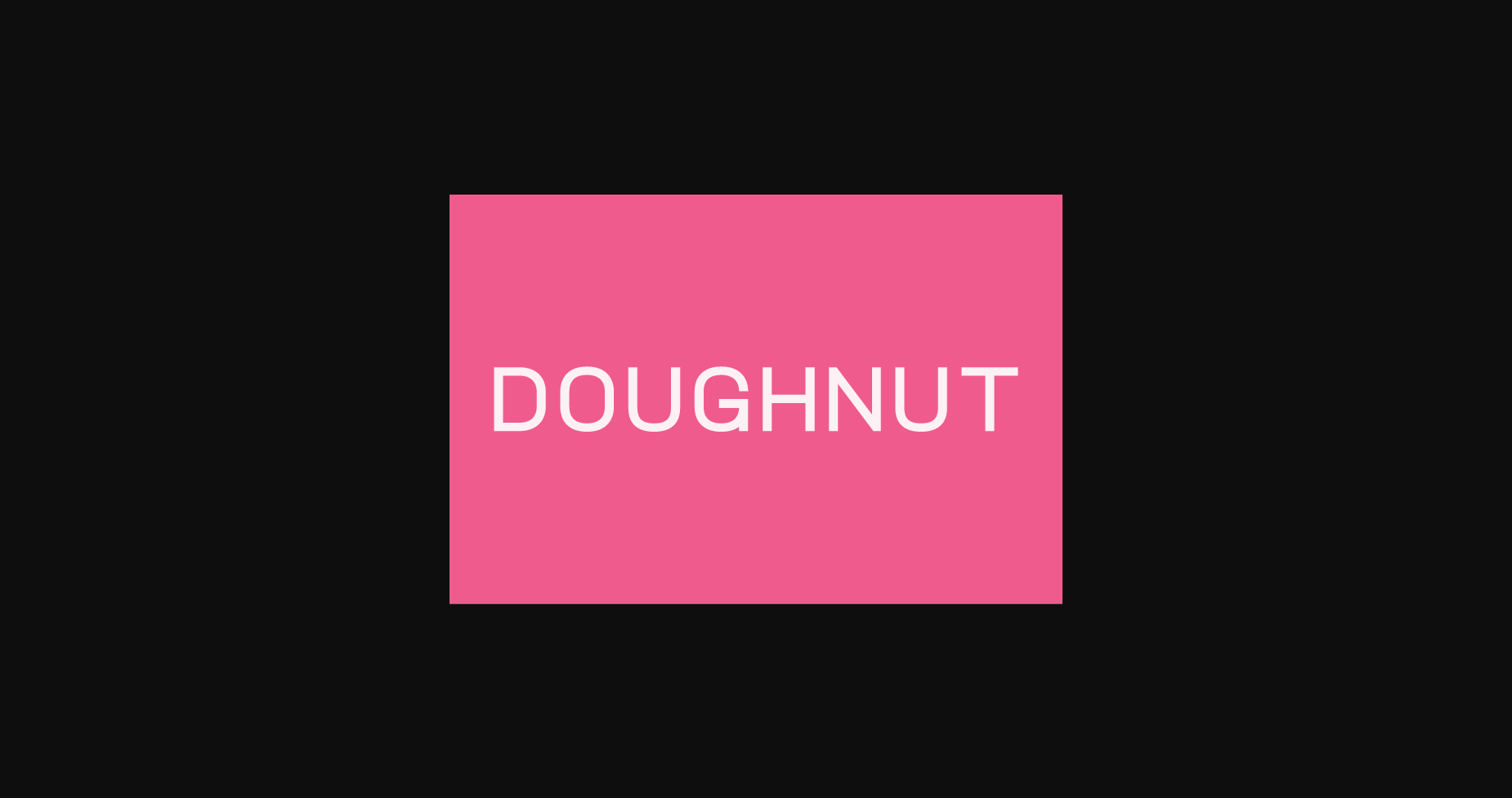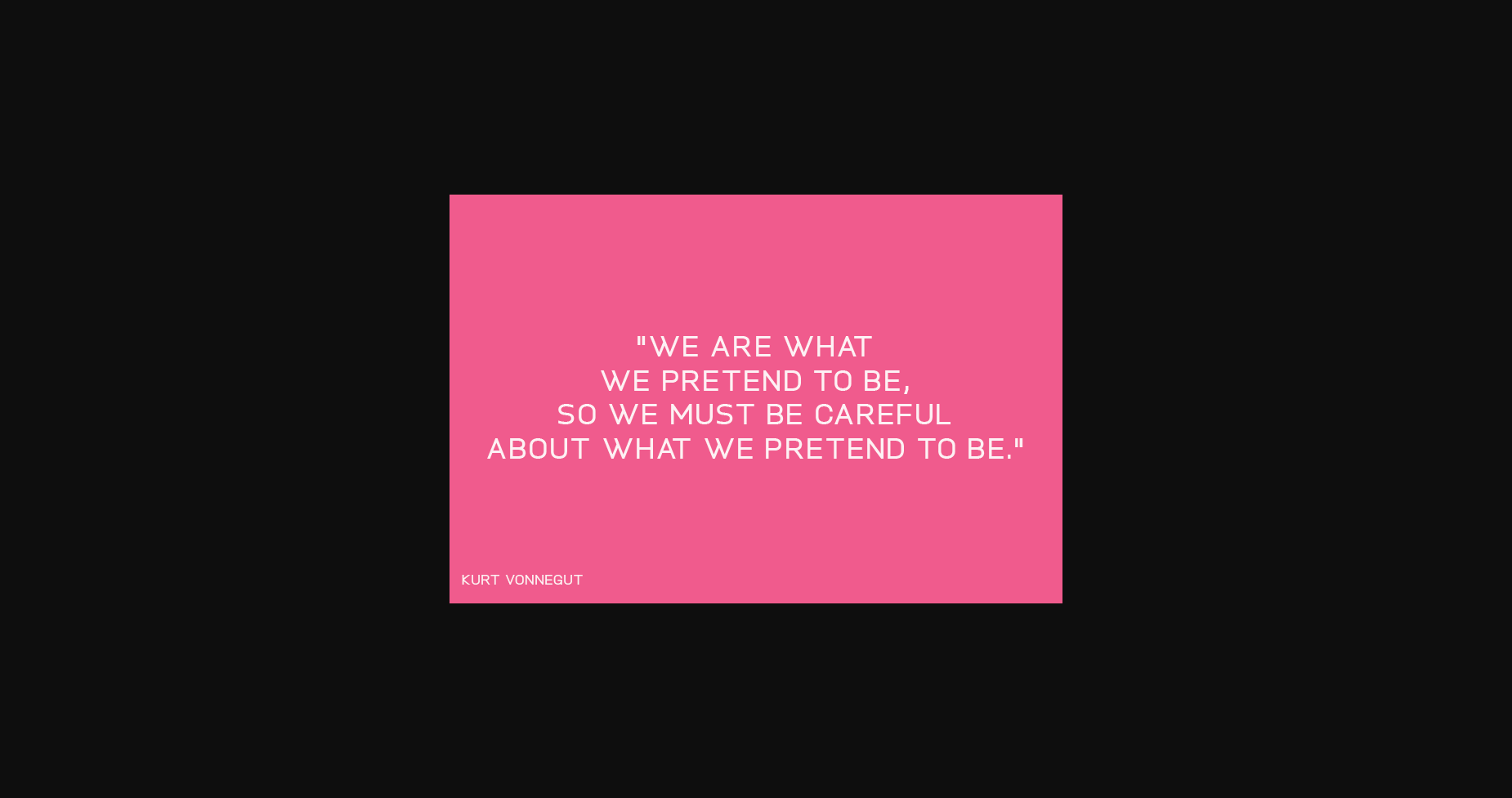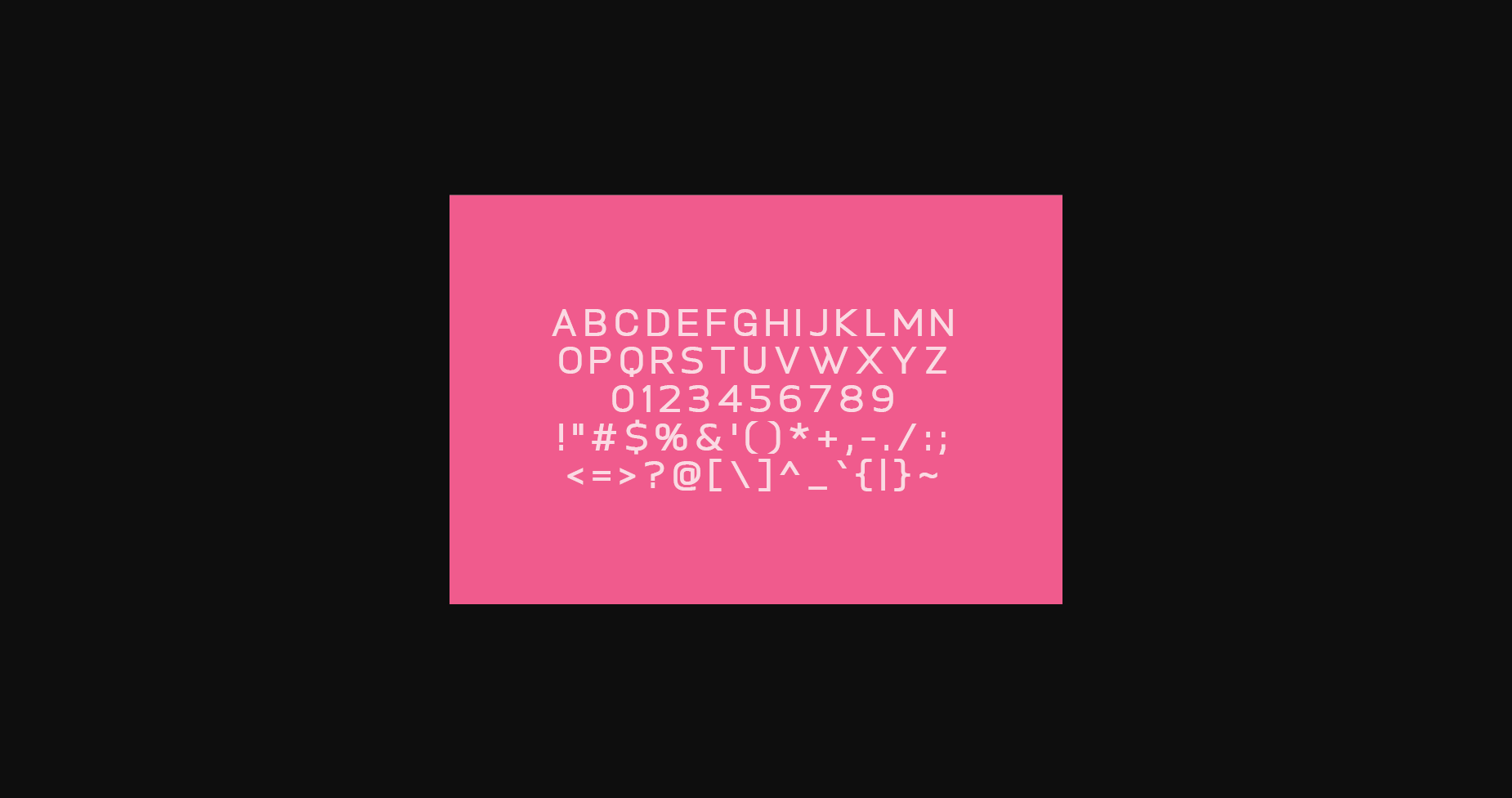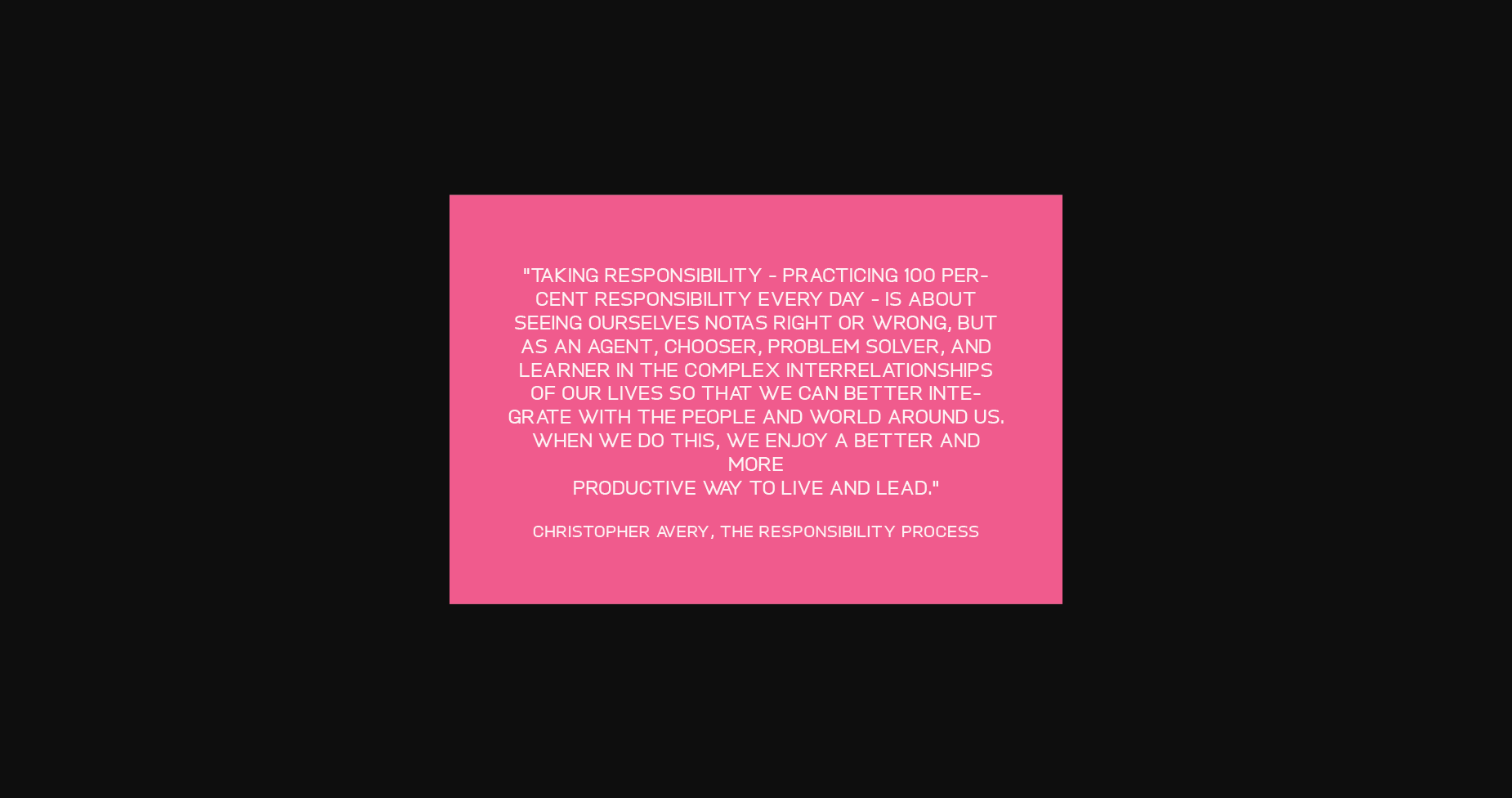
About Doughnut Font
Introducing Doughnut, a modern, classy sans serif typeface.
An extremely versatile font, perfect for logos, weddings, invitations, quotes, advertisements, print, magazines, and more!